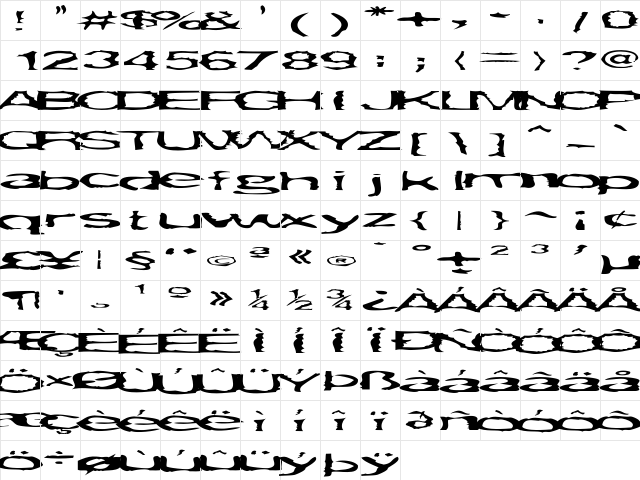
Gargantua Medium
Design Context for Gargantua Typeface
Gargantua is a composed and adaptable typeface that performs quietly and consistently across a wide range of design contexts.